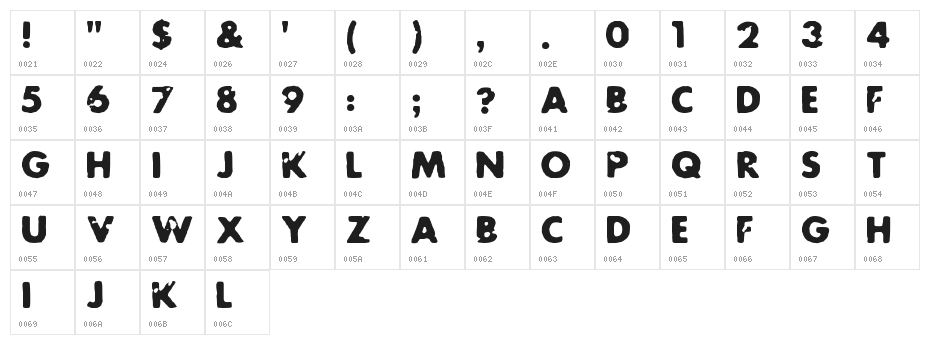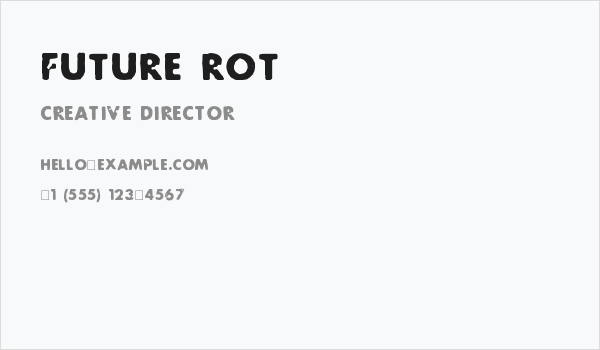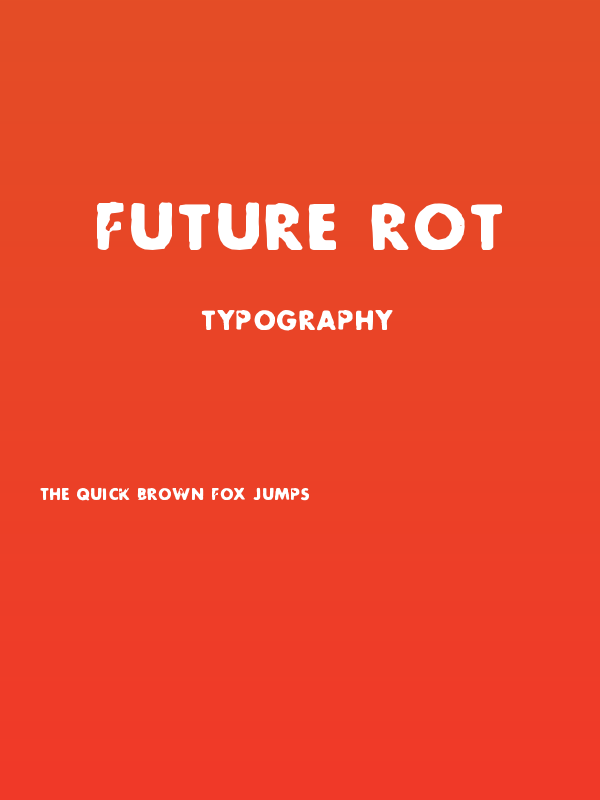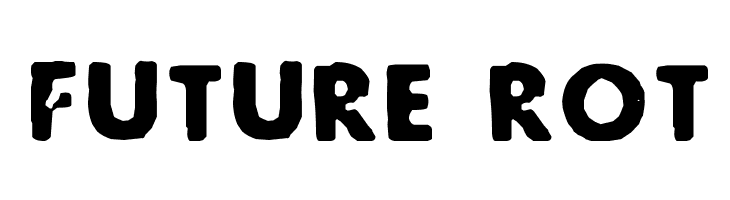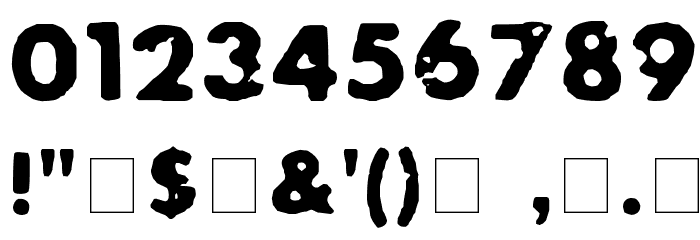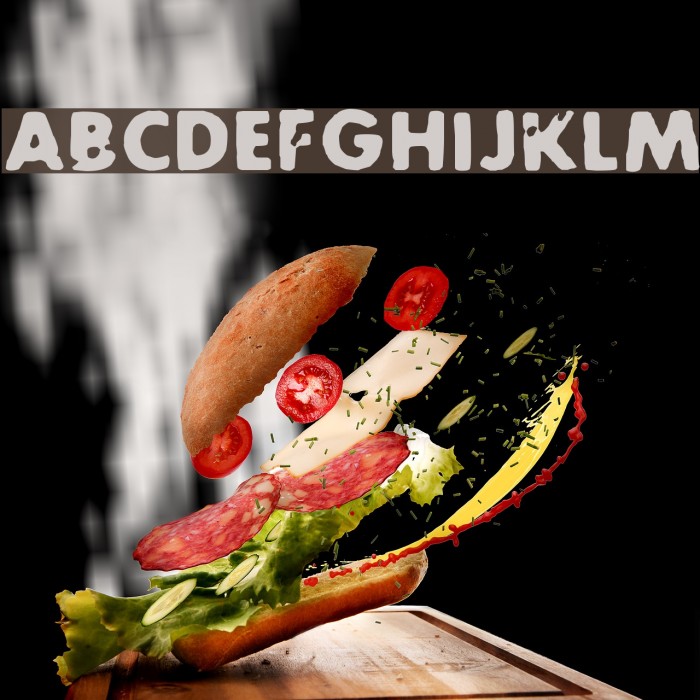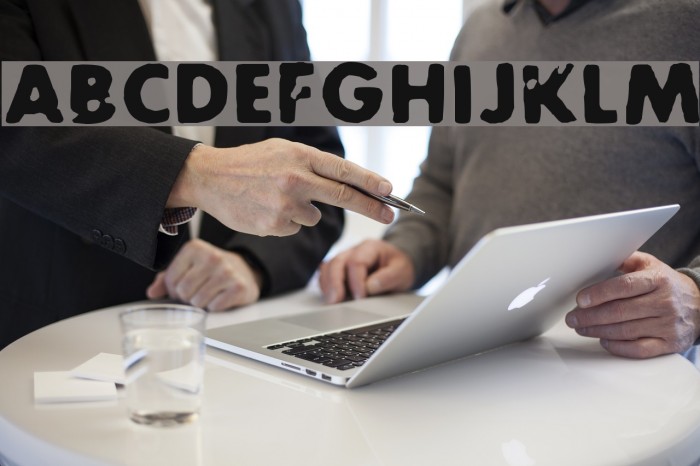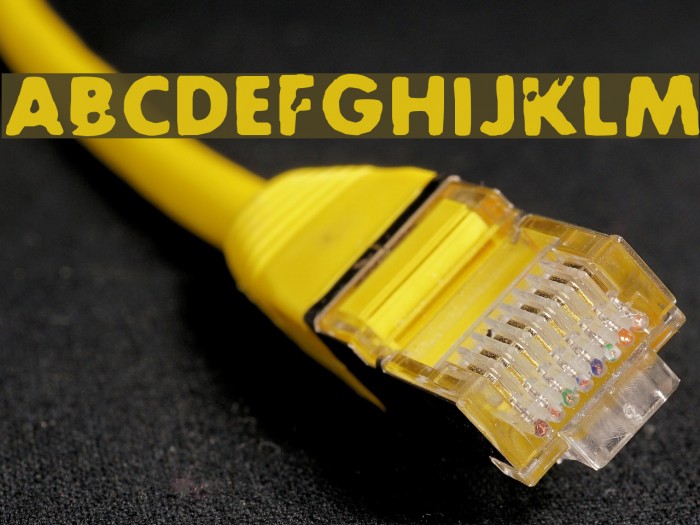
Future Rot Font
Future Rot Description
This font features a bold and playful design with a distressed, grunge-like texture that gives it a unique and eye-catching appearance. The characters are thick and rounded, with irregular edges that add to the overall rugged aesthetic. The uppercase and lowercase letters maintain a consistent style, while the numbers and special characters complement the alphabet with similar boldness and texture. This font's distinctive look makes it suitable for projects that require a strong visual impact.